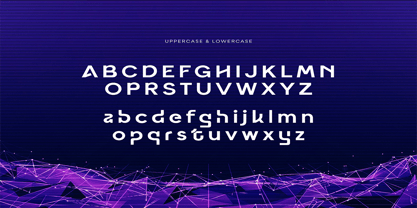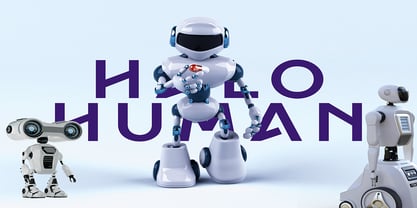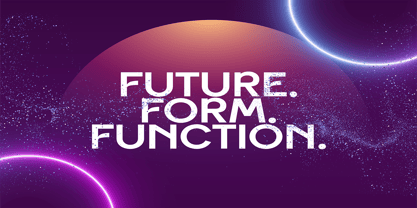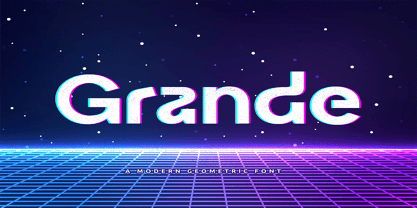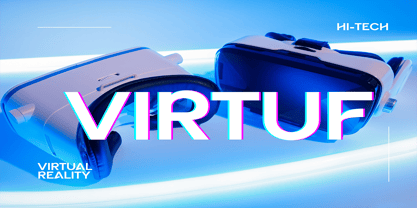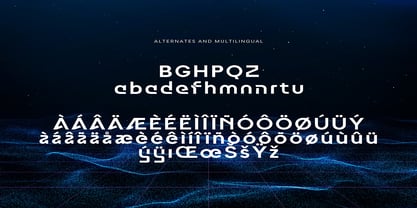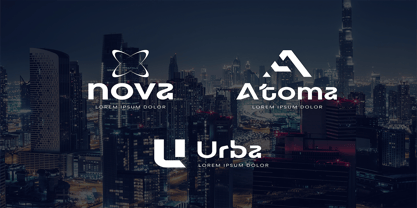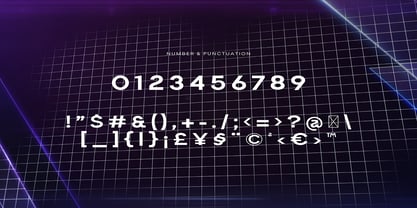
Grande
Meet Grande: Future. Form. Function.
Step into the next dimension of typography with Grande, a striking modern geometric font designed to bridge the gap between clean aesthetics and bold futurism. Built on strong structural lines, wide proportions, and unique geometric cutouts, Grande is engineered to command attention across digital displays, high-tech branding, and cosmic-themed creative projects.
Its distinct silhouette effortlessly handles modern, stylized effects like glitch art and retro-futuristic synthwave designs. Whether you are building an empire in the tech space, creating immersive virtual realities, or defining a bold corporate identity, Grande provides the ultimate typographic toolkit.
Key Features
• Complete Typographic Control: Includes a full set of distinct uppercase and lowercase letters, giving you total flexibility over your hierarchy.
• Comprehensive Numbers & Punctuation: Comes fully equipped with clean, readable numerals and essential symbols to fit standard global layout standards.
• Deep Customization with Alternates: Take your layouts a step further with unique alternate characters (like the stylized B, G, h, m, and n) to make your logos and wordmarks genuinely one-of-a-kind.
• Global Language Support: Expansive multilingual support ensures your brand can communicate seamlessly across international borders.
Versatile Application
Grande isn't just a typeface; it’s a branding powerhouse. Its geometric structural perfection makes it highly versatile for:
• Cutting-Edge Tech & Web 3.0 Branding: Excellent for futuristic tech start-ups, cryptocurrency platforms, and software branding, as demonstrated by the sleek corporate identities (nova, Atoma, Urba).
• Next-Gen Tech Experiences: The perfect typographic anchor for high-tech entertainment, virtual reality applications, and gaming interfaces (see the bold impact of VIRTUF.
• AI and Robotics Marketing: Give a friendly yet ultra-modern voice to automation and artificial intelligence campaigns (as perfectly paired with the playful droids).
Bring a bold, forward-thinking presence to your designs today. Let Grande carry your brand into tomorrow.